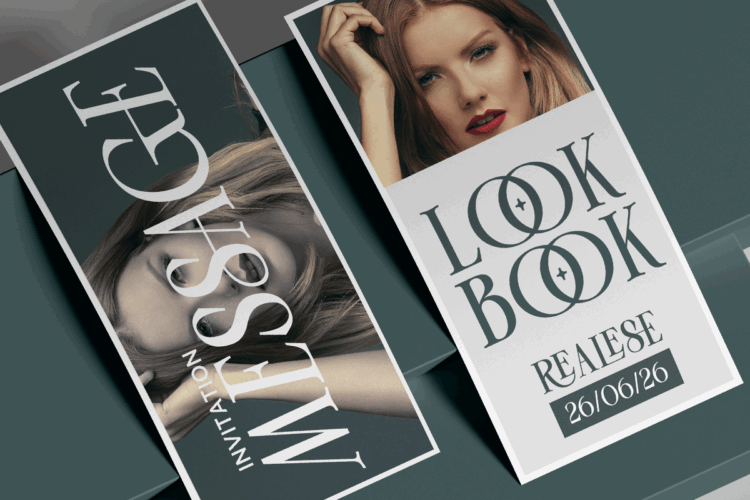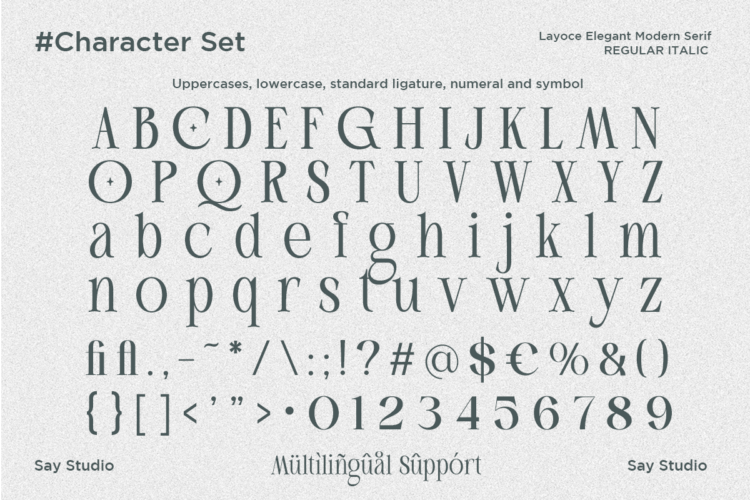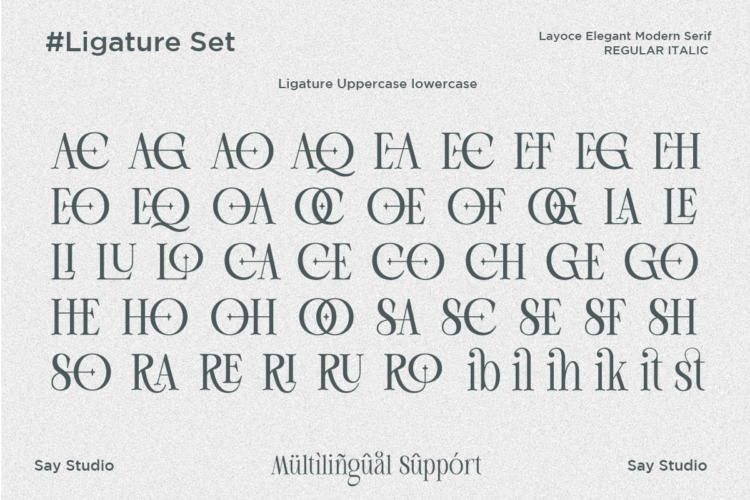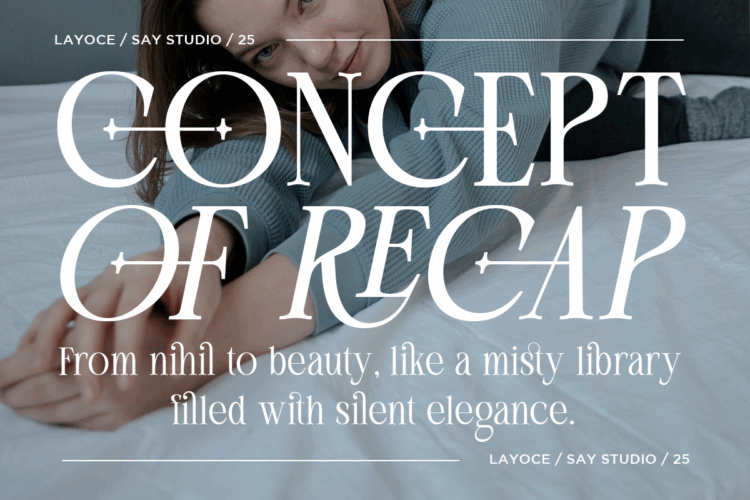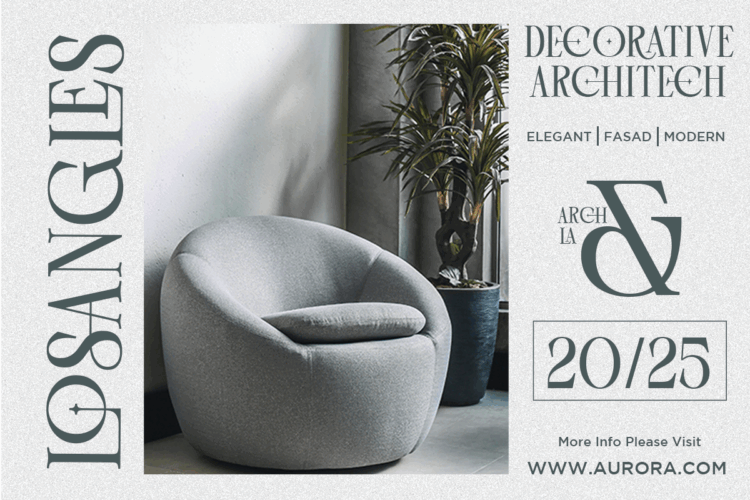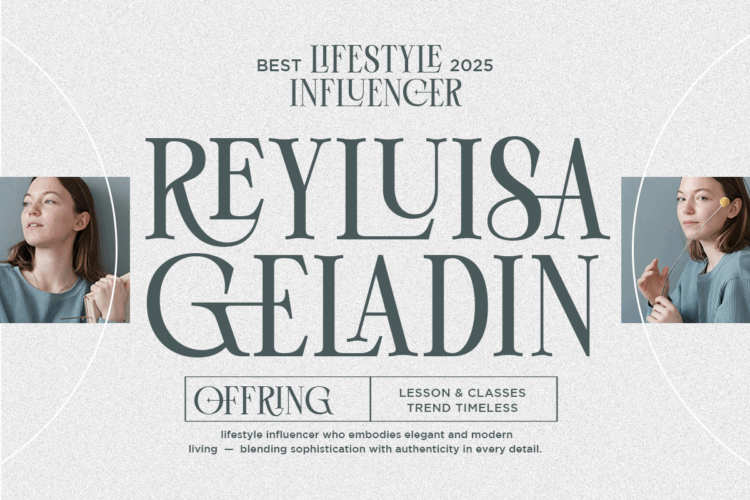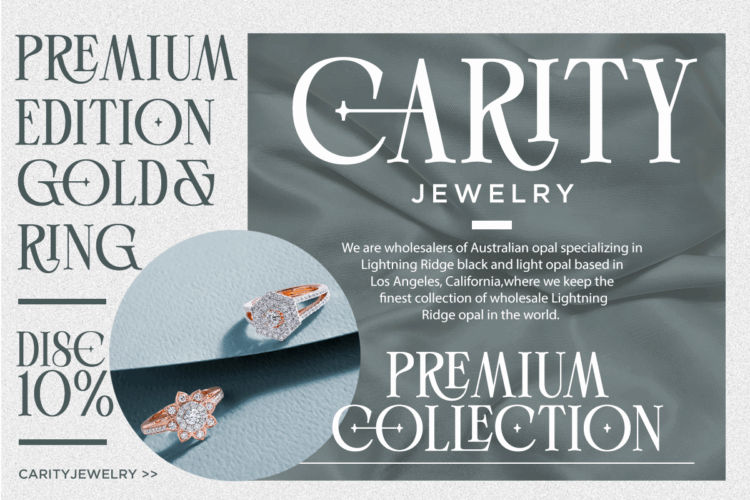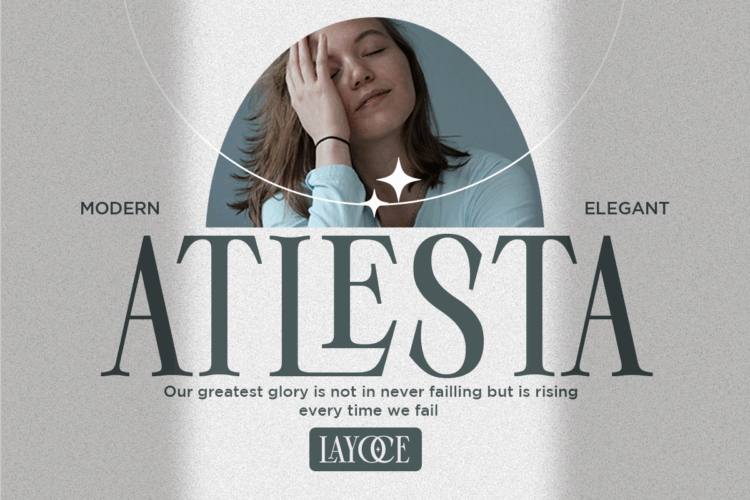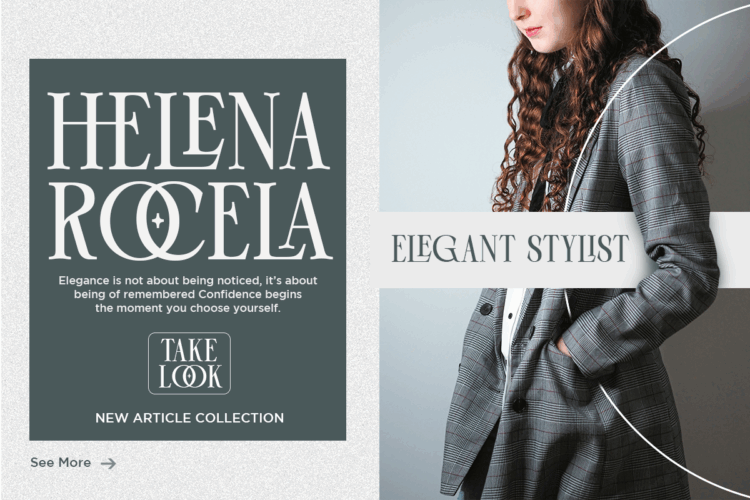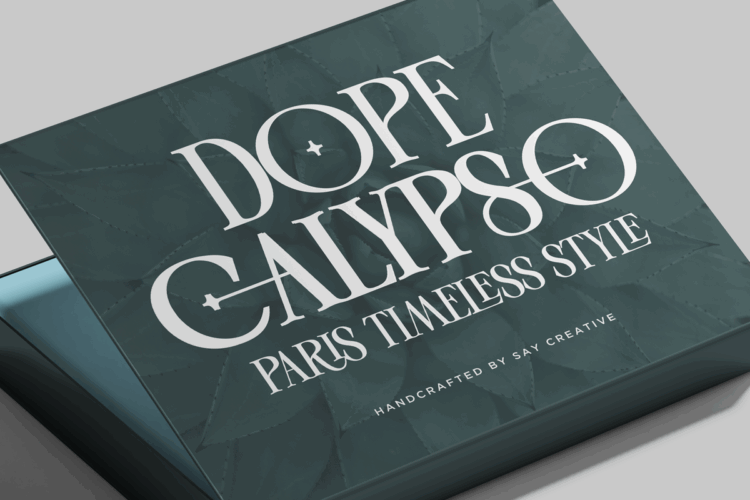
Layoce – Elegant Modern Serif Font
Layoce is an elegant modern serif font designed with refined curves, distinctive overlapping circles, and a luxurious editorial touch. Its high-contrast strokes and artistic ligature-style shapes make it perfect for premium branding, fashion magazines, logo typography, beauty packaging, and sophisticated visual identities. Created to bring timeless class with a contemporary edge, Layoce offers a stylish balance of minimalism and expressive character—ideal for designers seeking a high-end, iconic serif typeface.
– Stylistic Ligatures